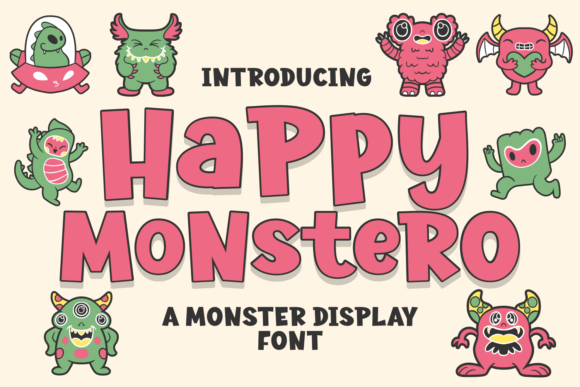
Happy Monstero Font
Embark on a typographic adventure with Happy Monstero Font, a captivating display font that exudes coolness, fun, and playfulness. This extraordinary typeface is a versatile chameleon, effortlessly adapting to any design project, enhancing and invigorating each creation. Unleash your creativity and let Happy Monstero transform your posters, branding endeavors, crafty ideas, and labeling needs into visually stunning masterpieces.
Picture this: a vibrant poster adorned with Happy Monstero's playful characters, capturing the attention of passersby and igniting their imaginations. Or envision a captivating branding project that leaves a lasting impression, thanks to Happy Monstero's ability to convey messages with playful charm.
Happy Monstero Font is more than just a font; it's an artistic gateway to a world of captivating designs. Its boundless versatility and user-friendly nature make it the perfect choice for designers seeking to add a touch of whimsy and fun to their projects.